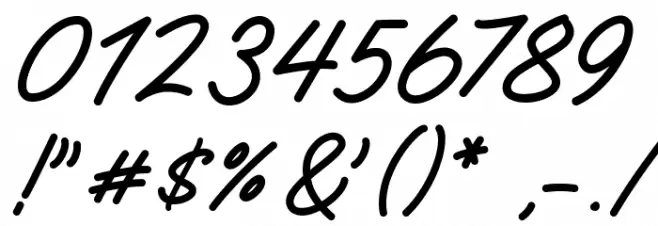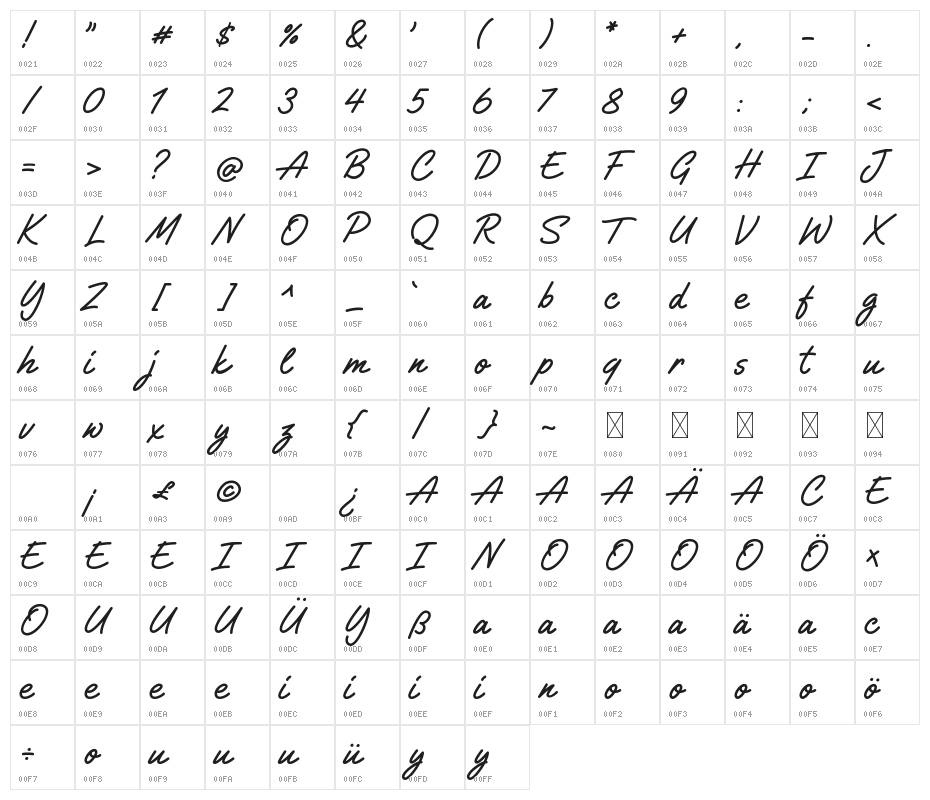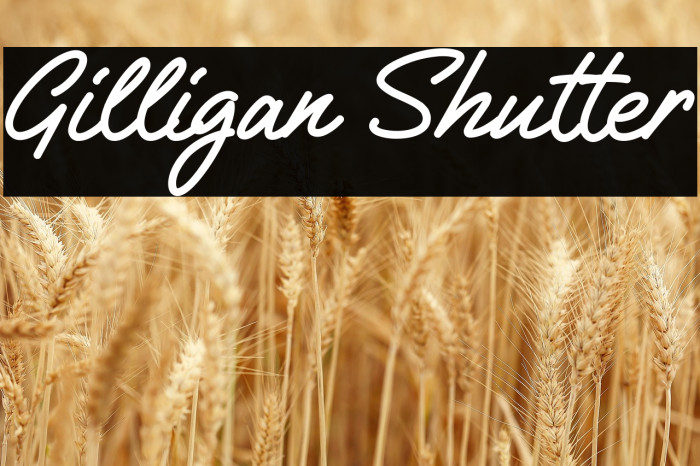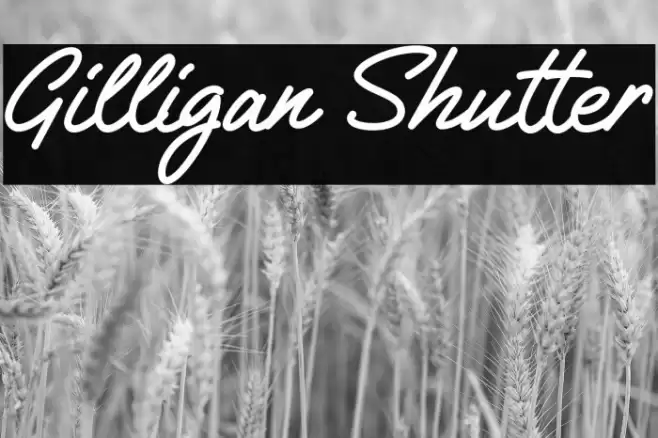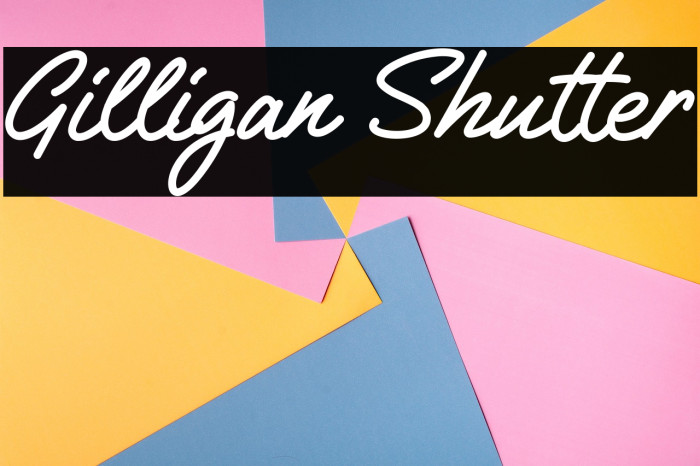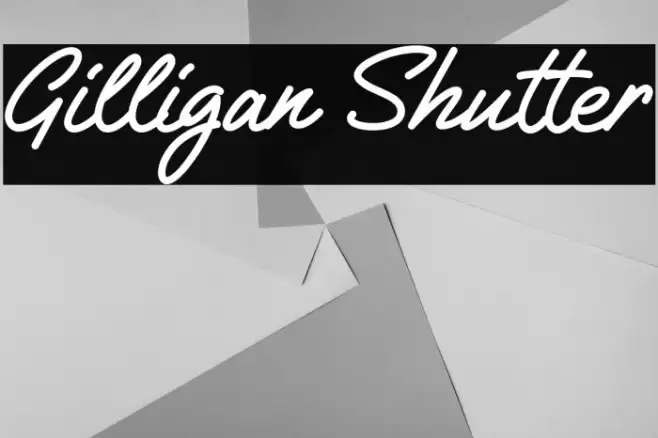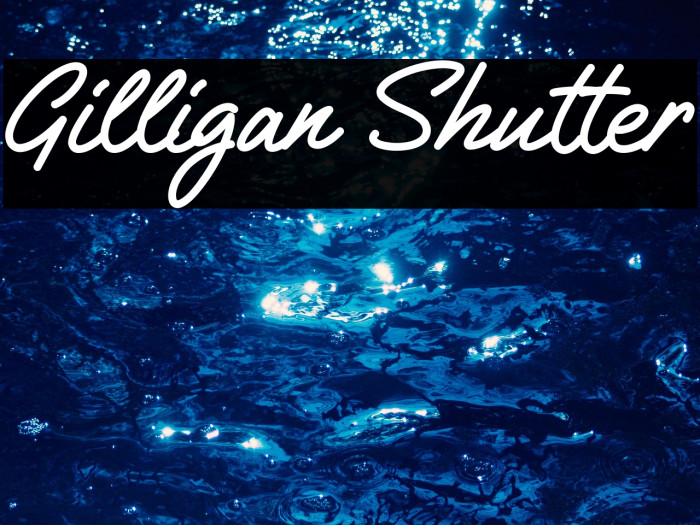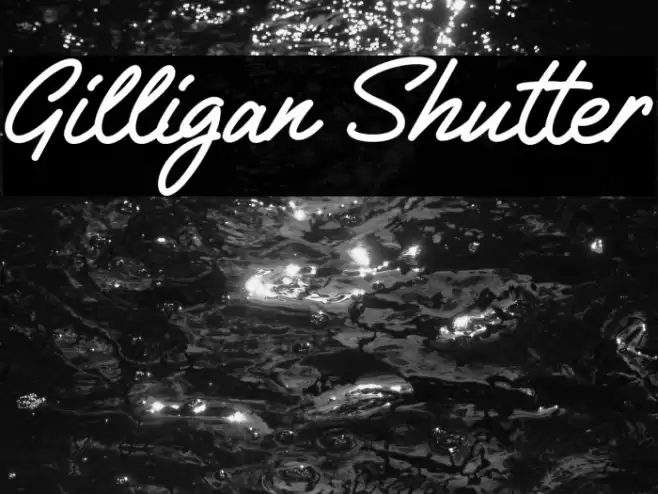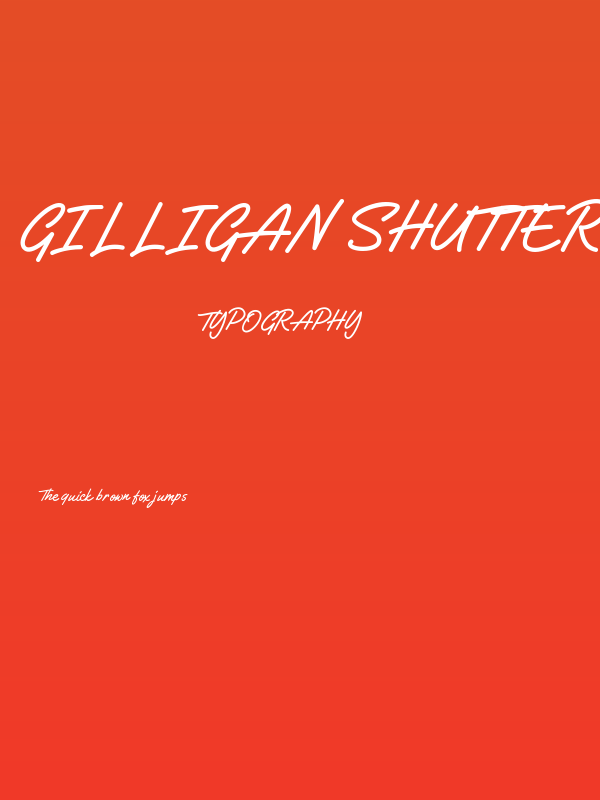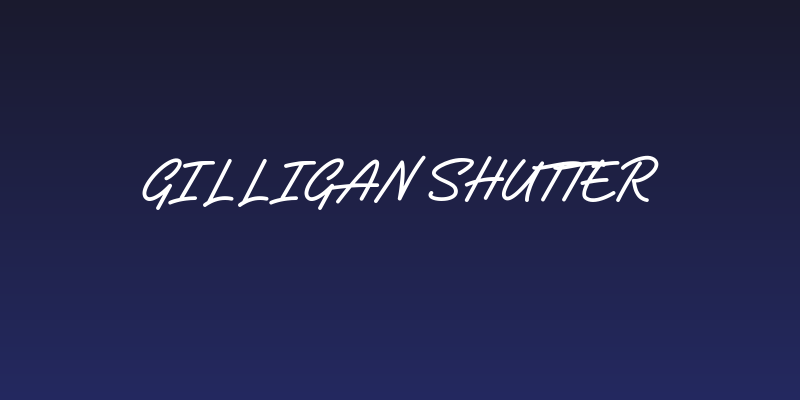
Gilligan Shutter Font
Gilligan Shutter Description
This font features a flowing, cursive style that mimics elegant handwriting. The characters are connected, creating a seamless and fluid appearance. The strokes are smooth and consistent, with a slight slant to the right, enhancing the handwritten feel. The uppercase letters are bold and prominent, while the lowercase letters maintain a balanced and harmonious look. Numbers and special characters are designed to match the overall aesthetic, ensuring a cohesive appearance across all text. This font exudes a sense of sophistication and personal touch, making it ideal for projects that require a human element.
| Use Case | Logos, Invitations, Personal Correspondence |
| Proposed Projects | Ideal for wedding invitations, personal letters, branding materials, and any project needing a personal, elegant touch. |